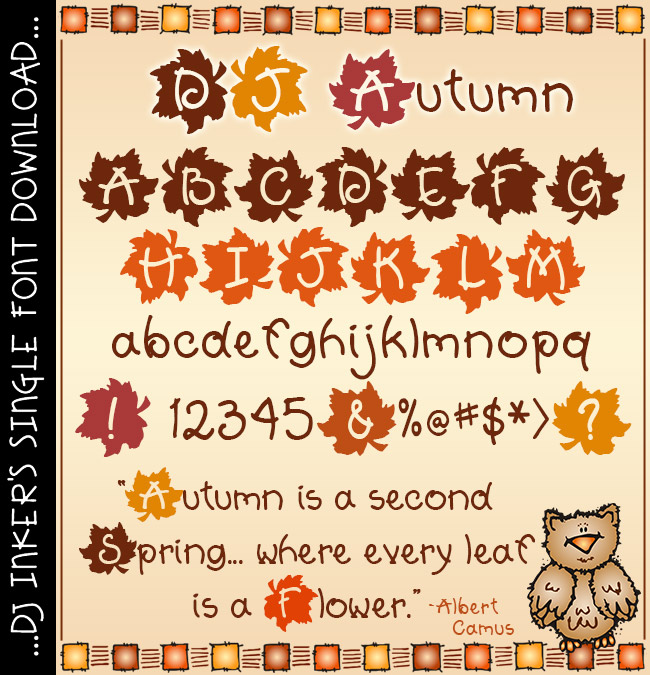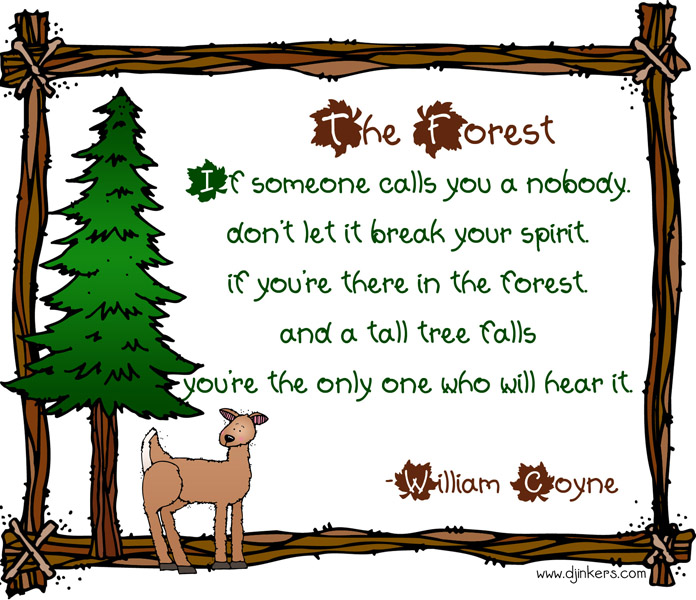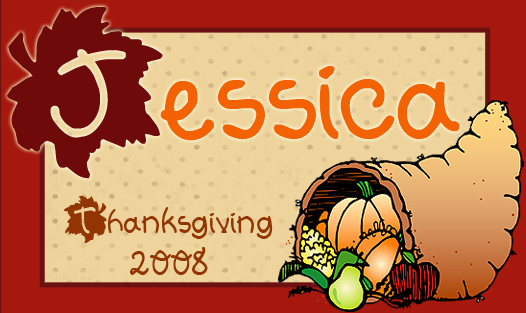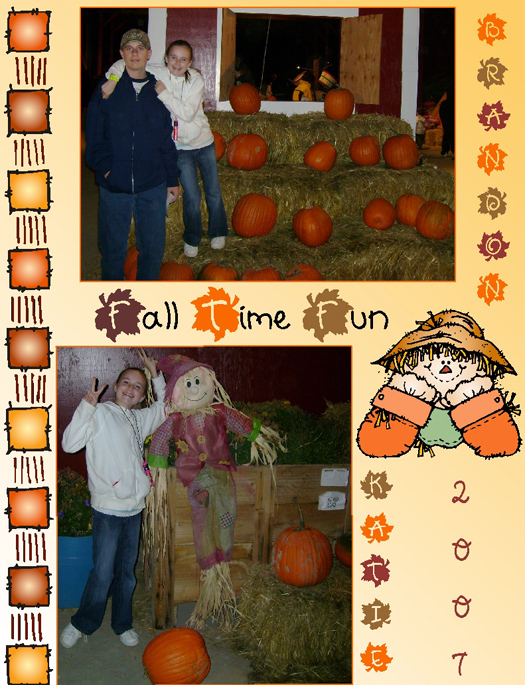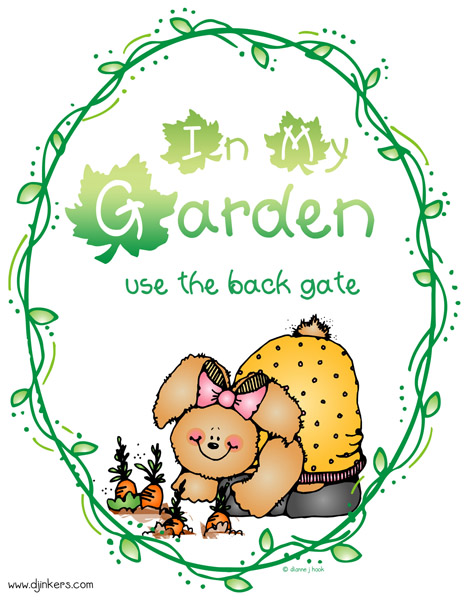
DJ Autumn Font Download
You'll fall in love with our lovely leafy lettering as you create your seasonal smiles this year. This charming Autumn font looks great in red, brown, orange or even gold. Use your imagination and mix-it up for 'piles' of fun on all of your creative fall projects.